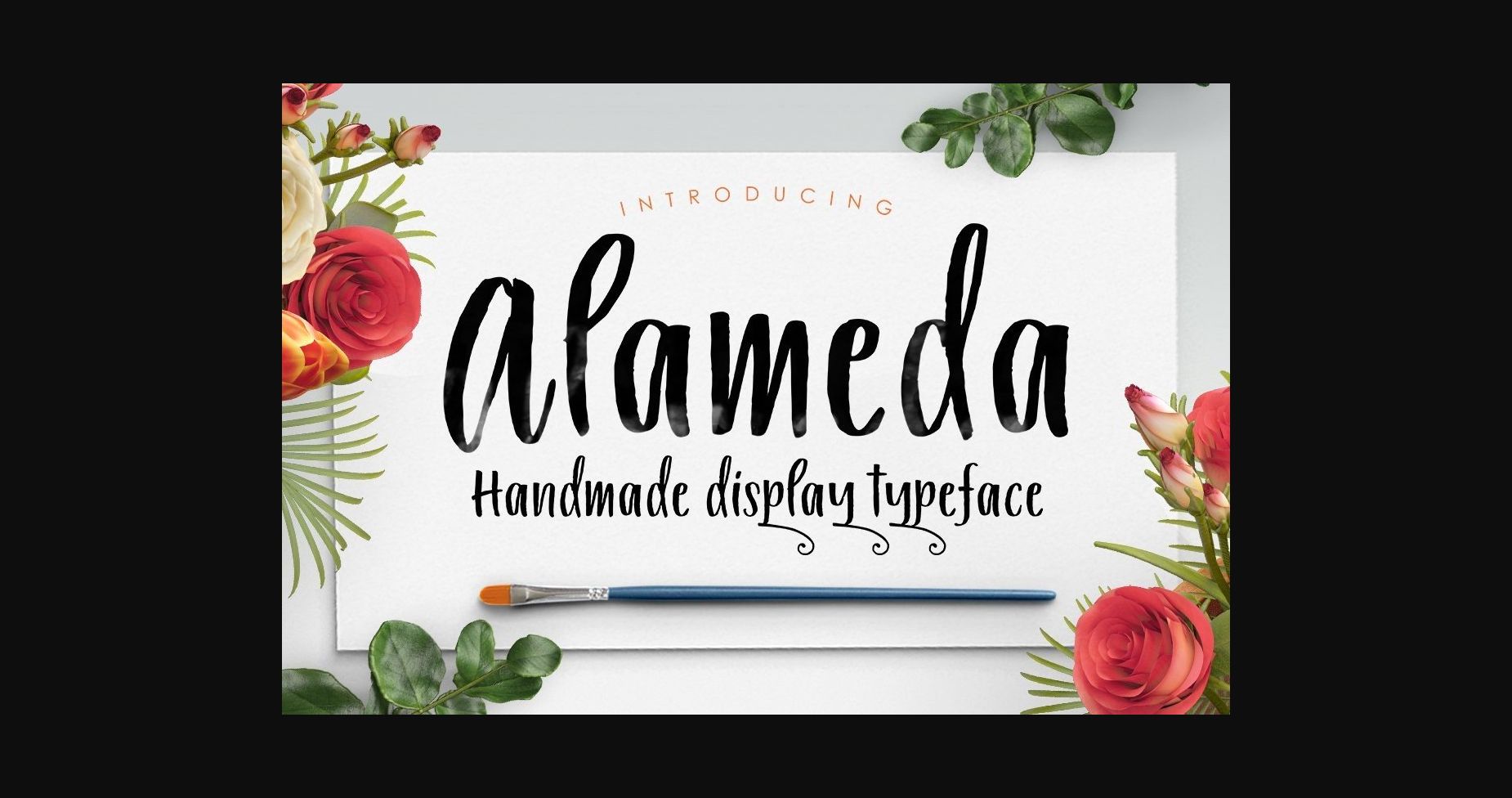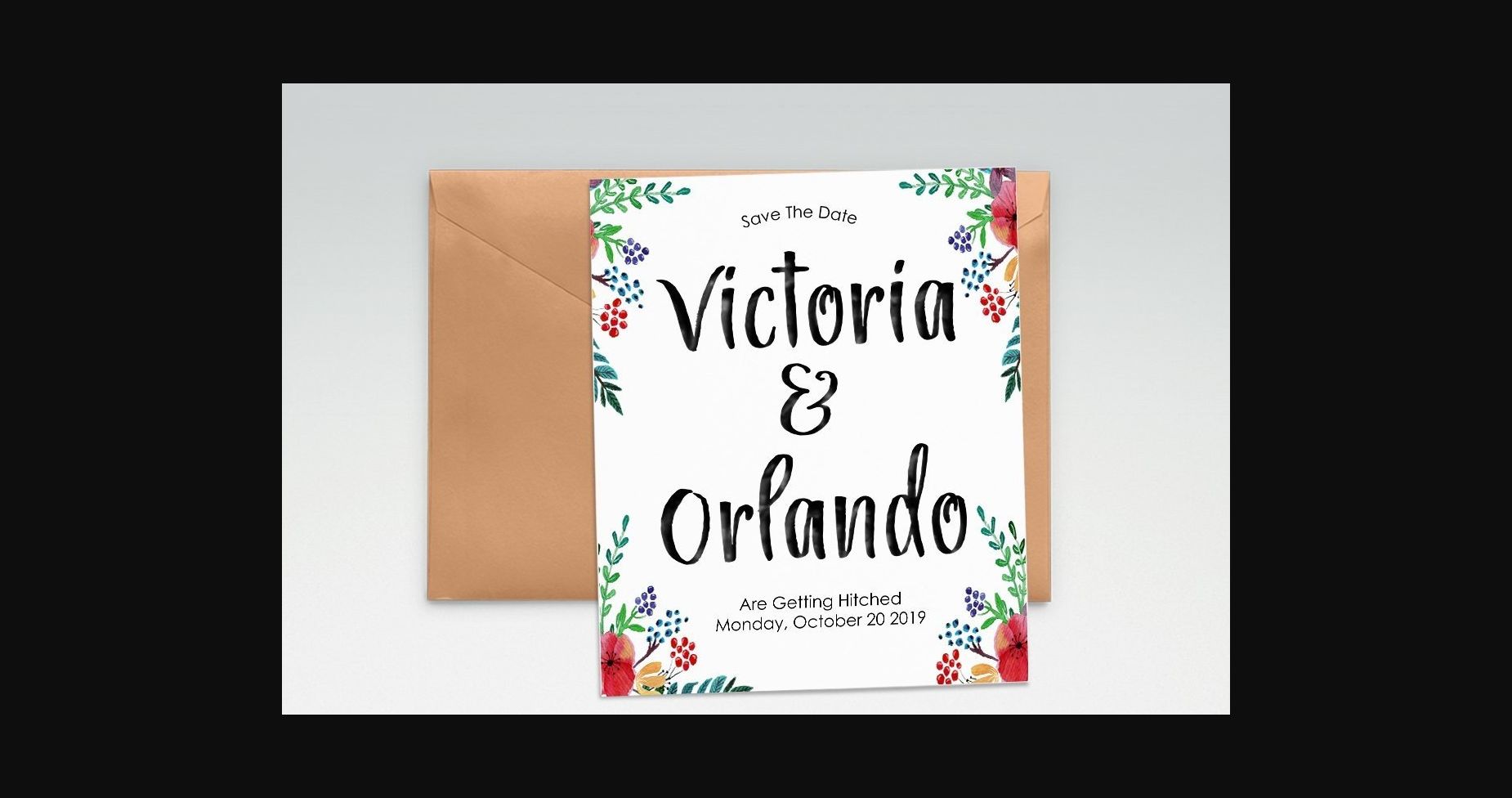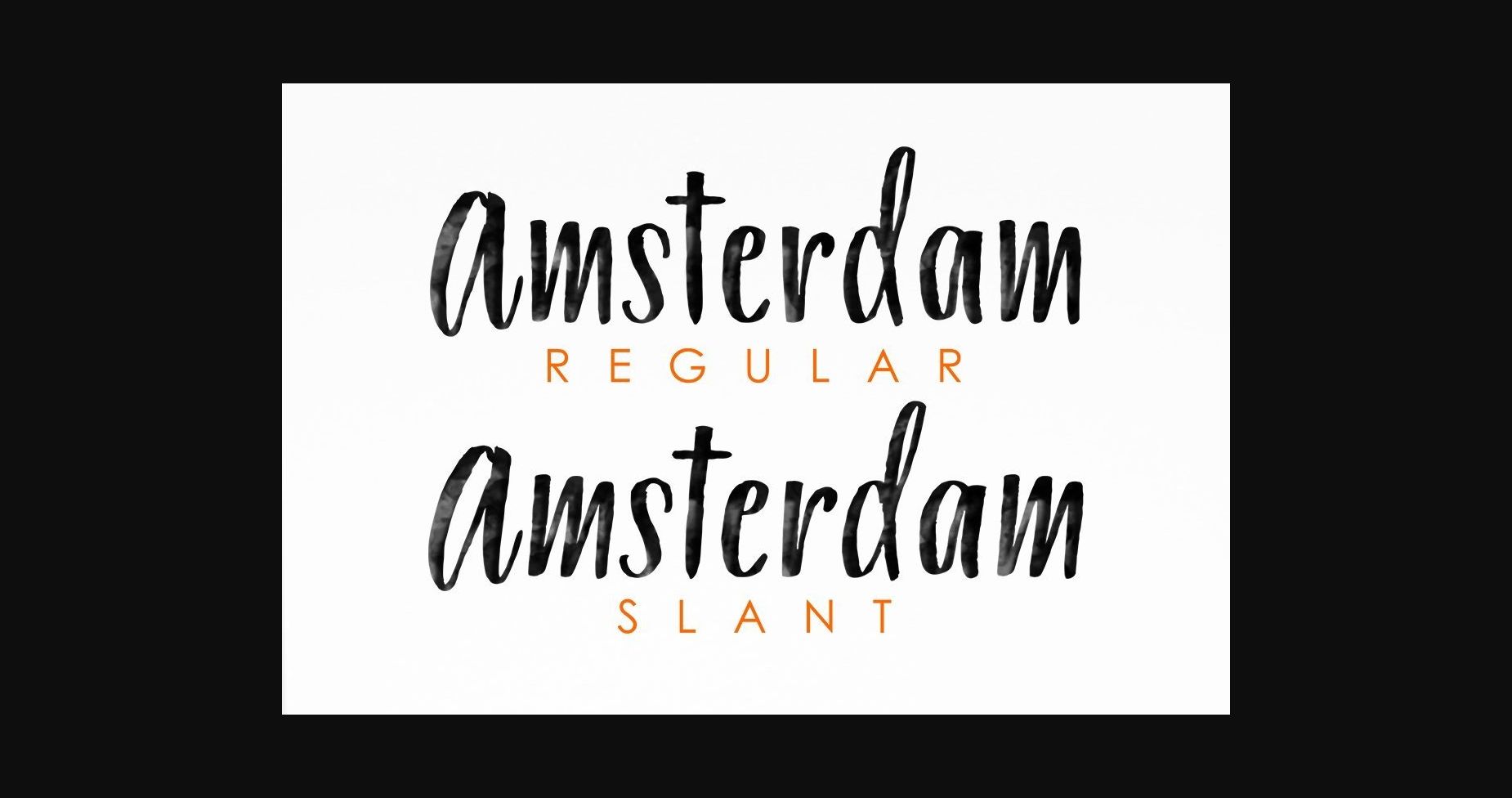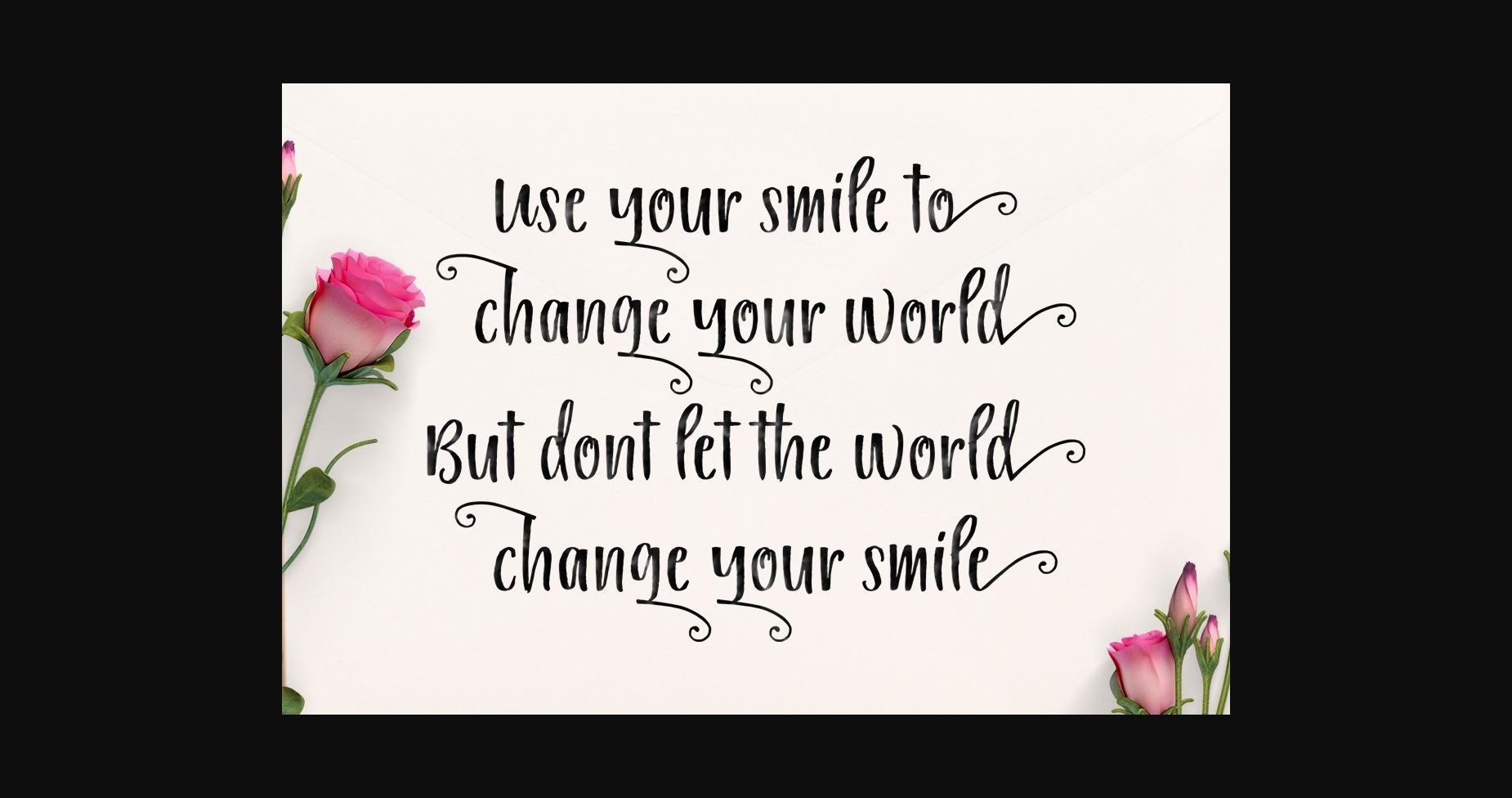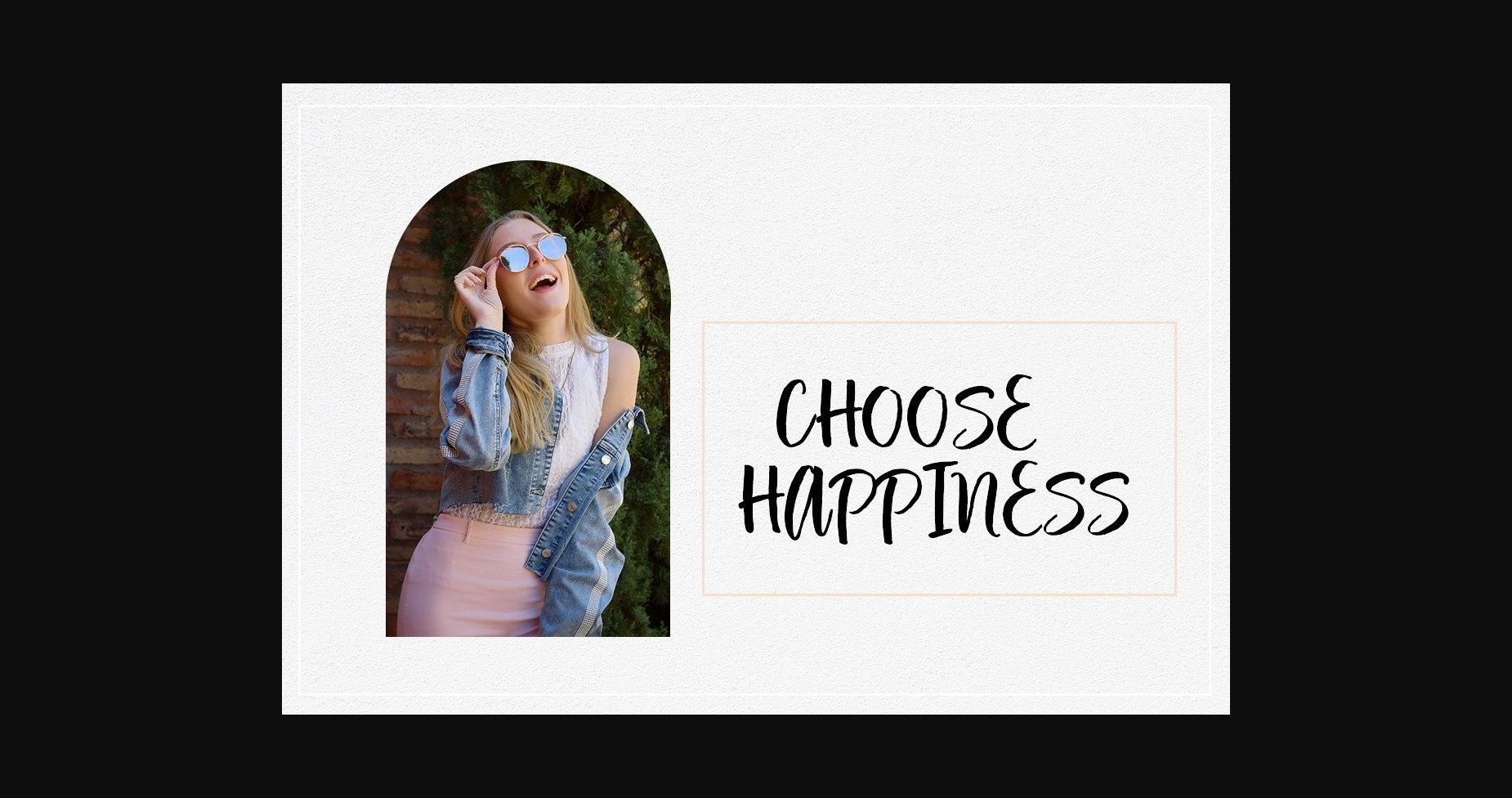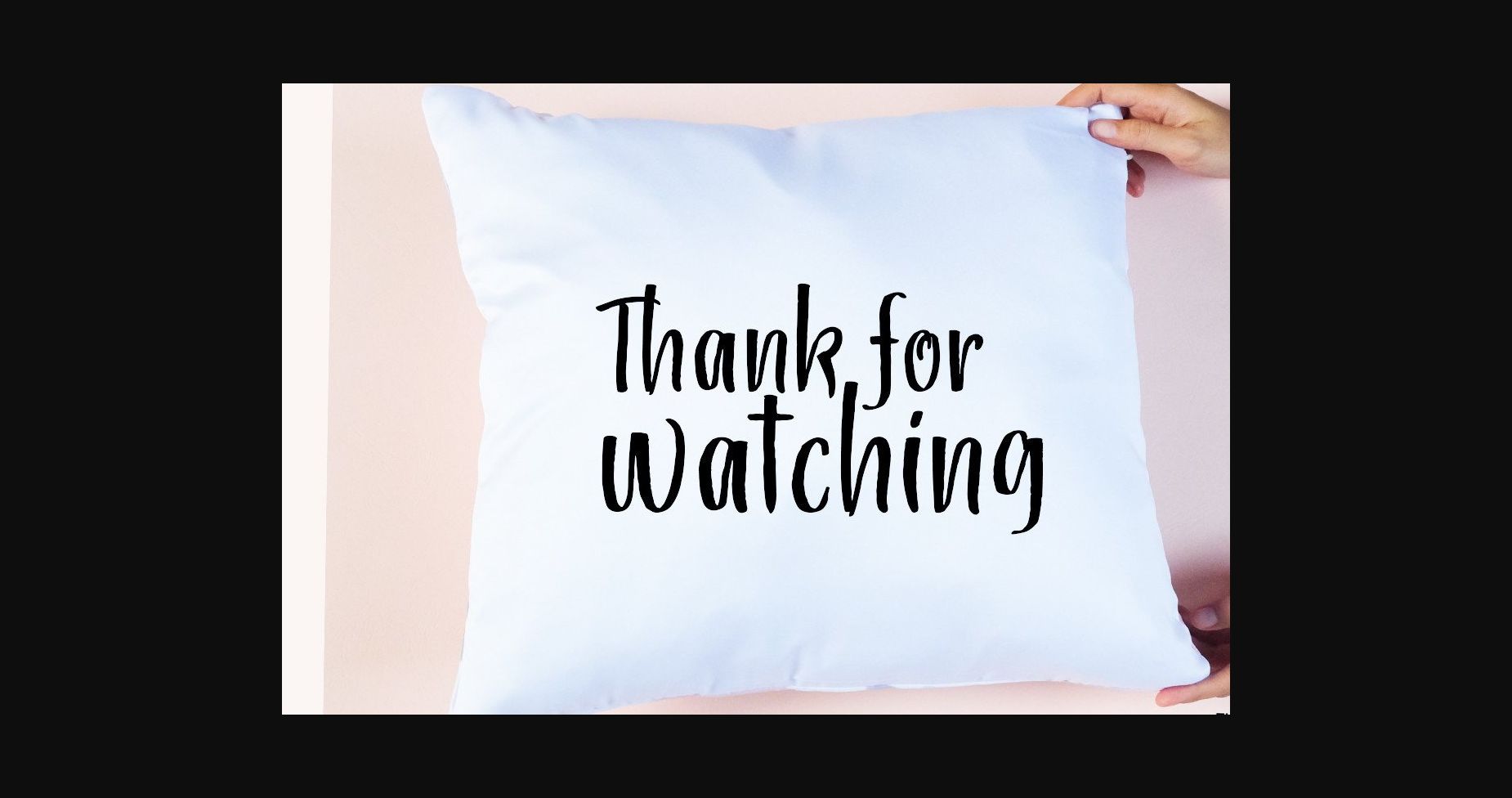
About Alameda Font
Alameda is modern brush font, stylish and organic. can be used for stationery, fashion, logo, merchandise, books, clothing, magazines, cover artwork, etc.